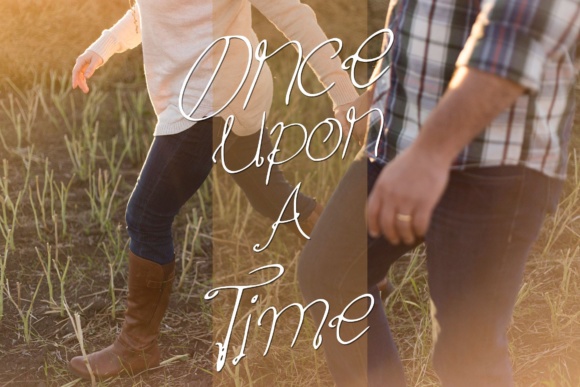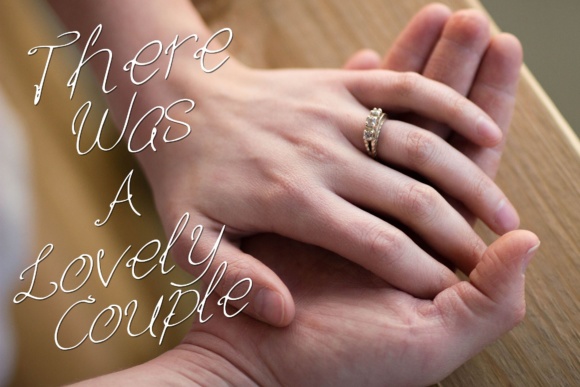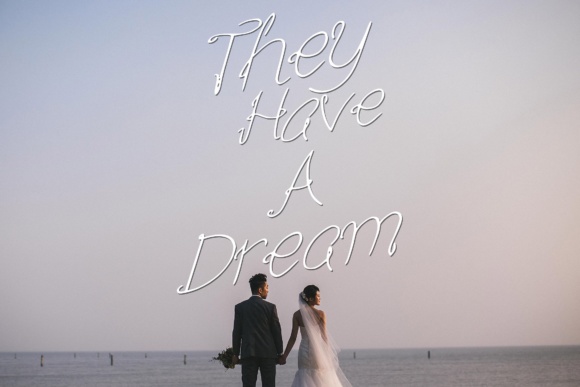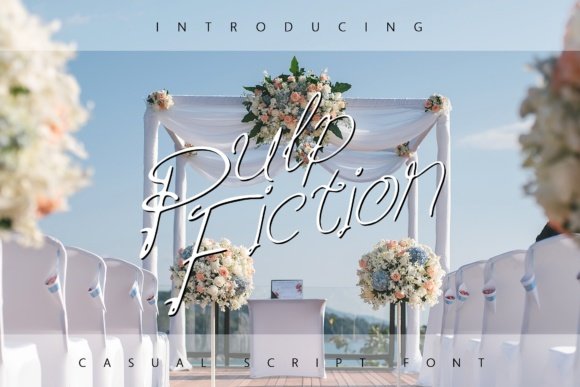
Introduction to Pulp Fiction Font
Pulp Fiction is a casual script font.
It can be used for minimalist photo editing or minimalist retro design, but is also perfect for wedding designs .